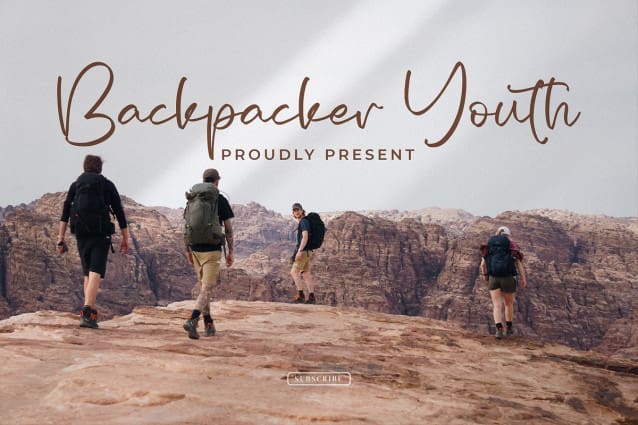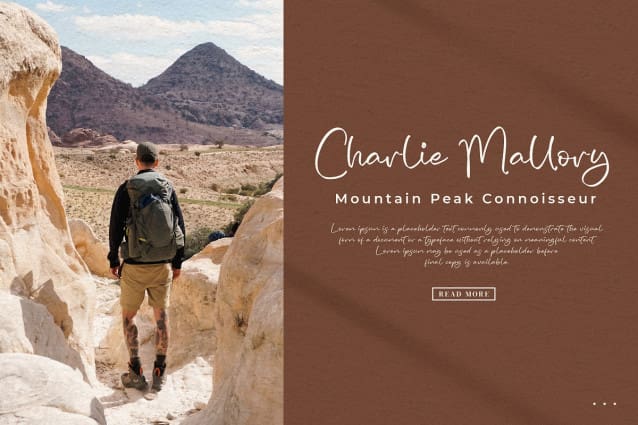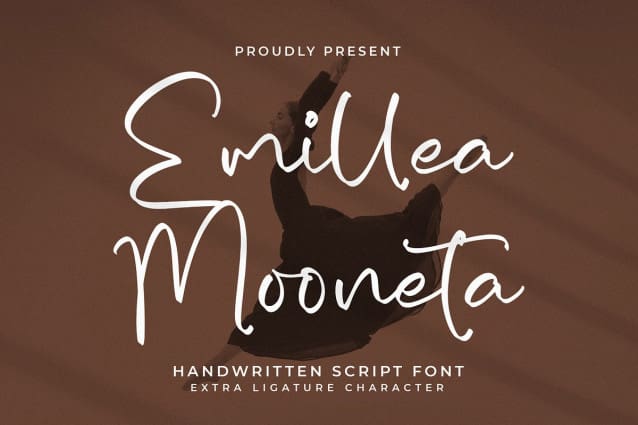
Emillea Mooneta Font
Emillea Mooneta – Handwritten Script Font, from Integritype Studio, is a premium Handwritten Script Font, perfect for any project like: logos, branding projects, homewares designs, product packaging, mugs, quotes, posters, shopping bags, t-shirts, covers books, business cards, invitation cards, greeting cards, labels, photography, watermarks, special events and all your other luxury projects that require a premium taste.